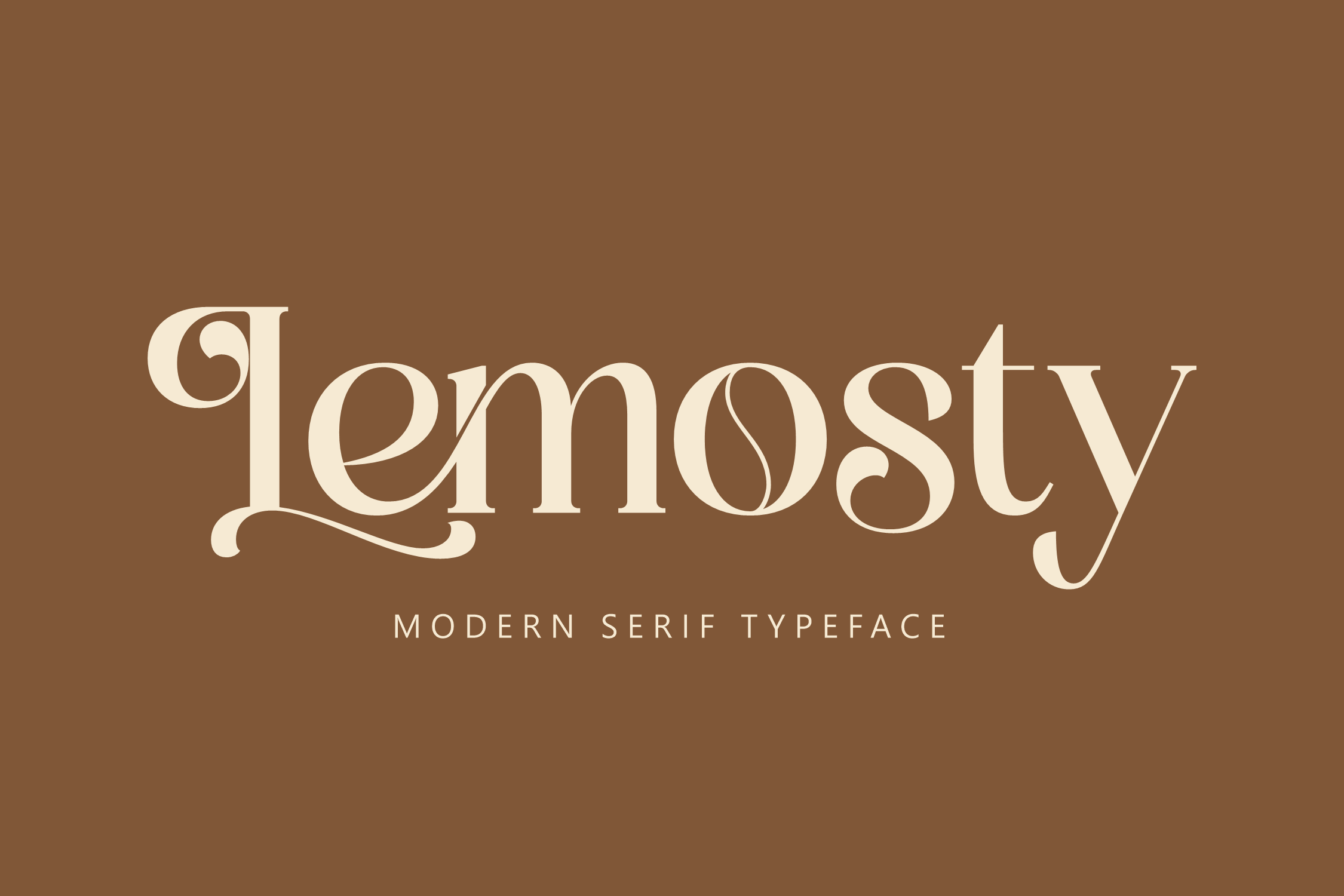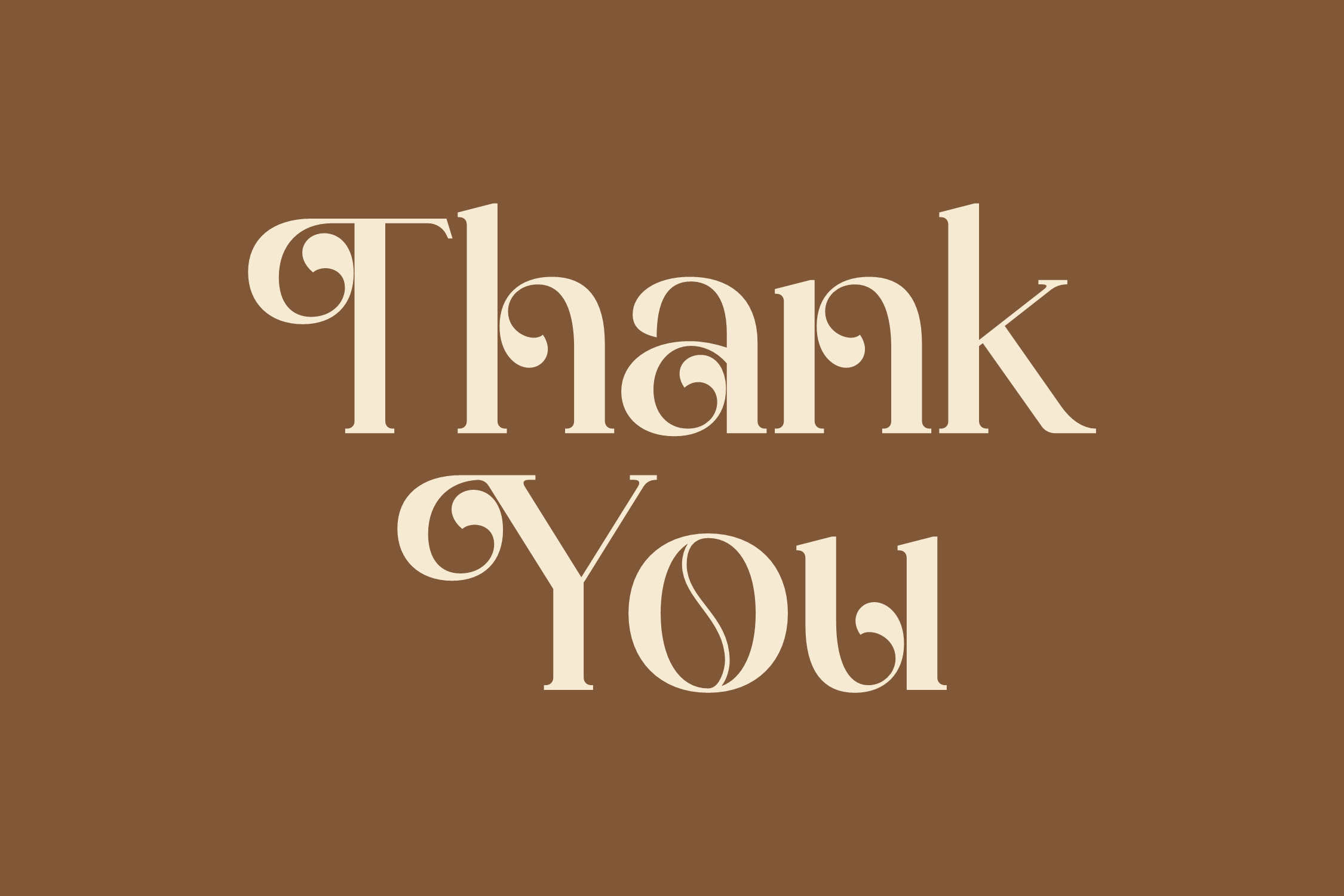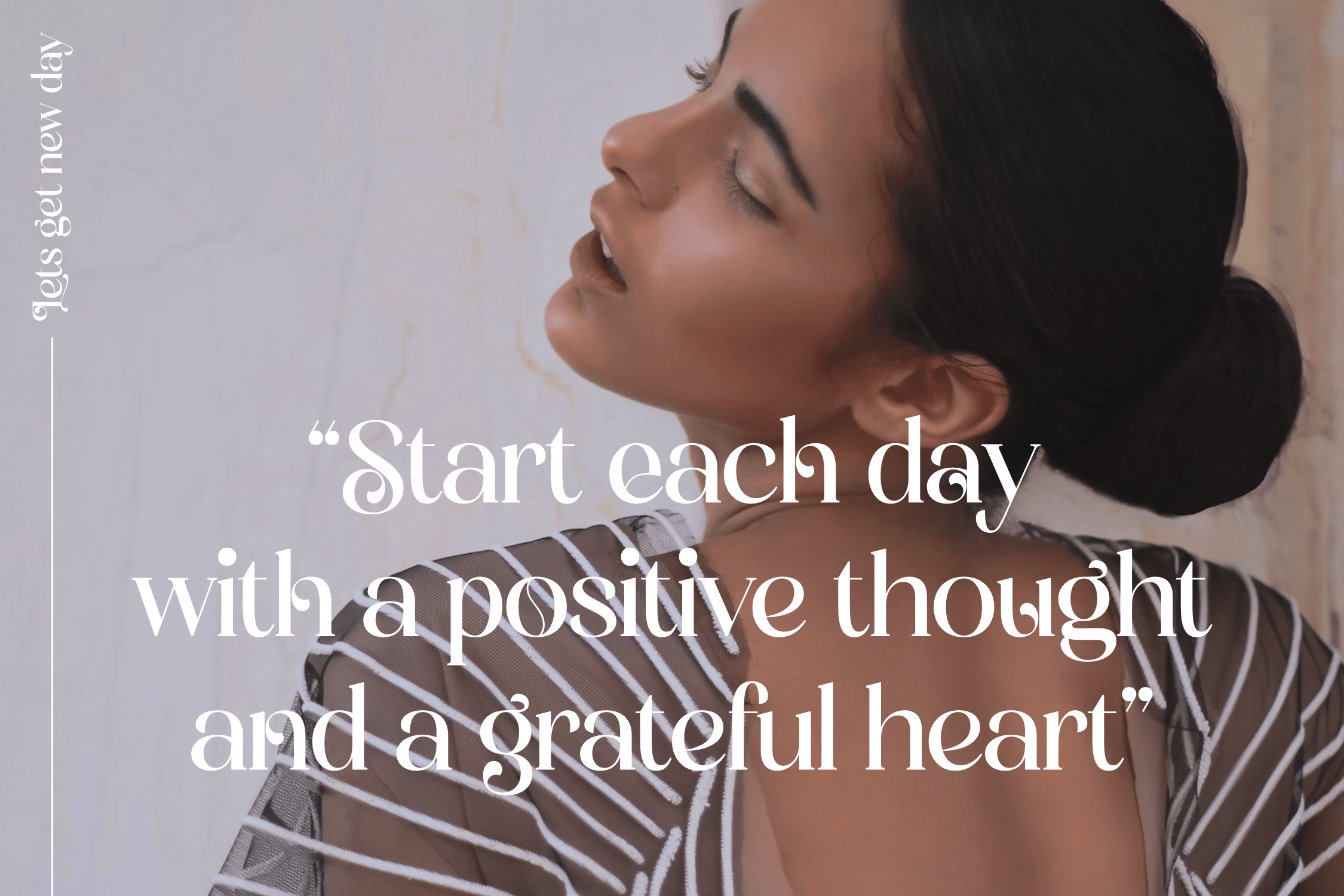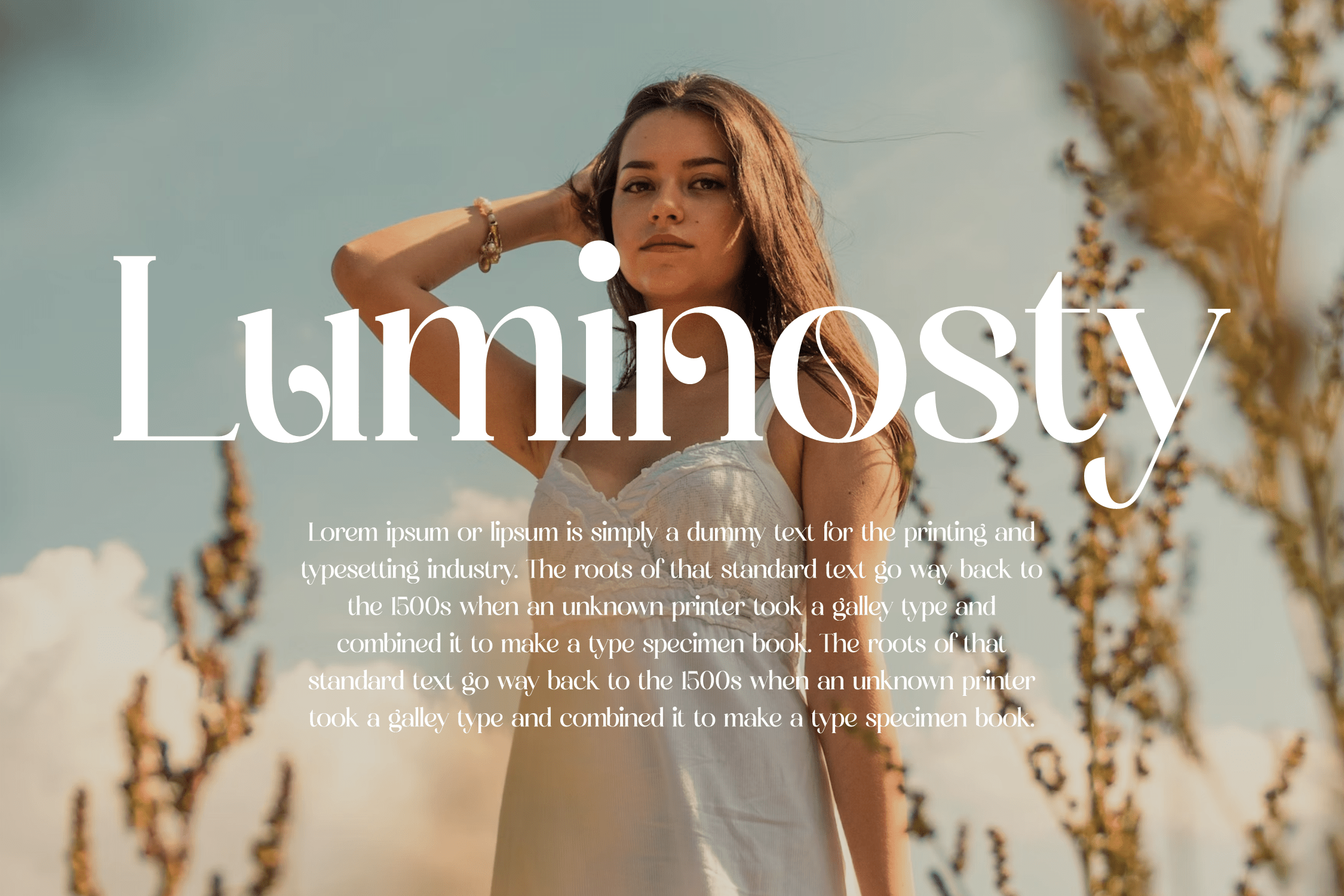
Lemosty Font
Lemosty Serif Font is a serif modern and classic typeface that has own unique style & modern look. This typeface is perfect for an elegant & luxury logo, book or movie title design, fashion brand, magazine, clothes, lettering, quotes, and so much more.